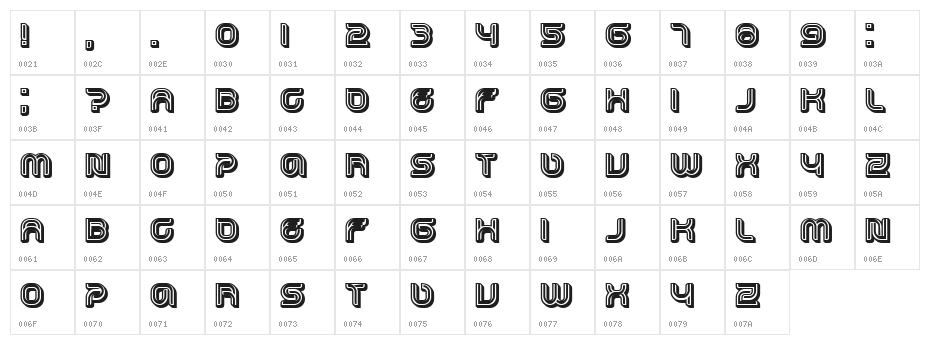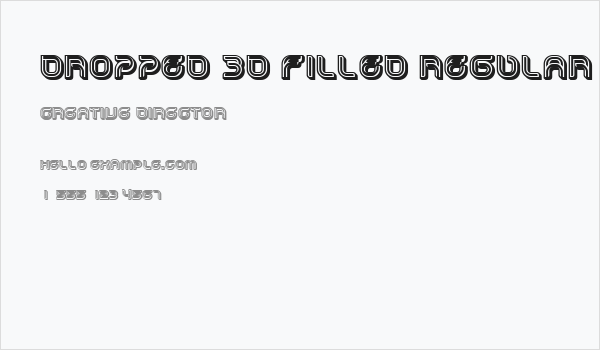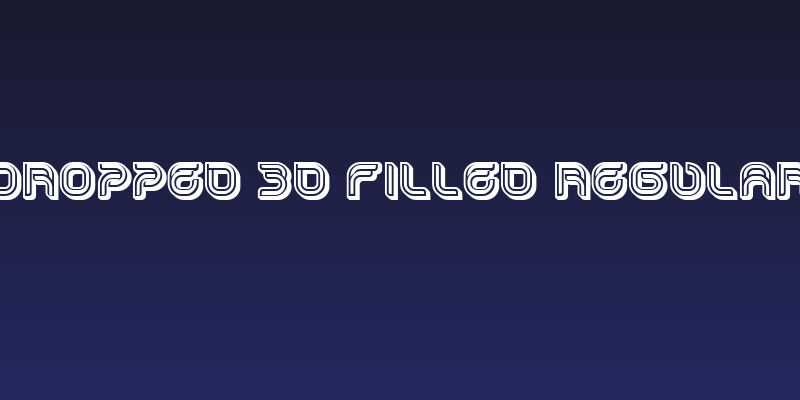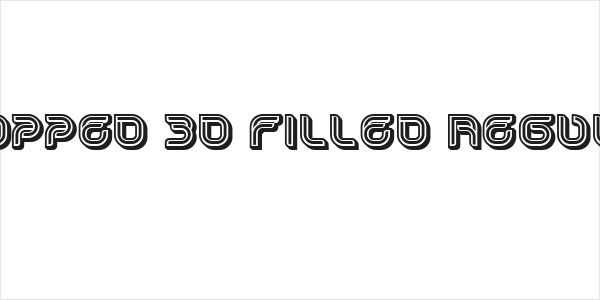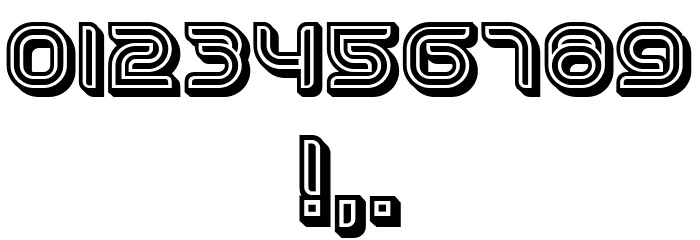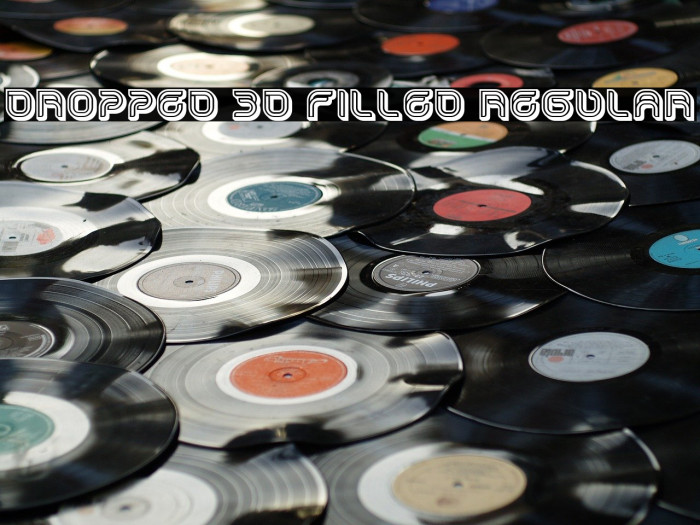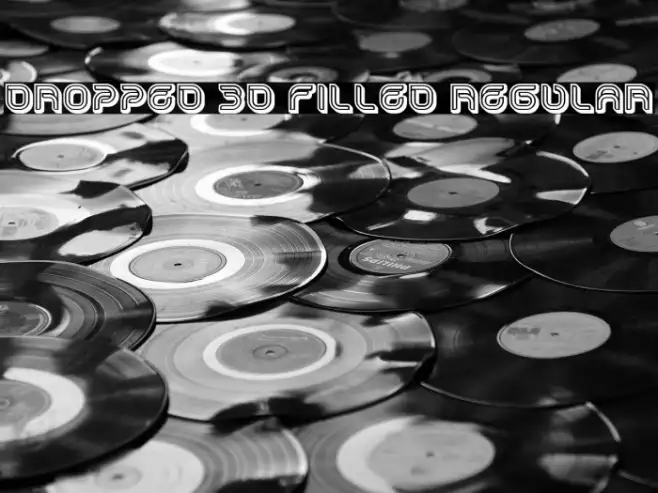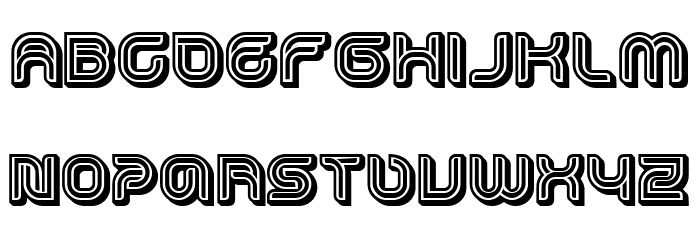
Dropped 3D Filled Regular Font
Dropped 3D Filled Regular Description
This font features a bold, three-dimensional design with a filled interior and a distinct outline, creating a striking visual effect. The characters are uniformly structured with rounded edges and consistent stroke widths, giving them a modern and playful appearance. The 3D effect is achieved through a clever use of shadowing and layering, making each letter appear as though it is popping off the page. This style is particularly effective for capturing attention and adding a dynamic element to any design. The font maintains a consistent height and width across all characters, ensuring a balanced and cohesive look. The numerals and special characters follow the same design principles, providing a complete and versatile typeface suitable for various applications.
| Proposed Projects | Ideal for headlines, posters, logos, and any design requiring a bold statement. |